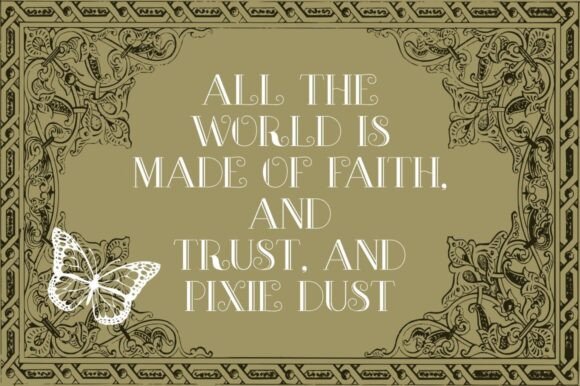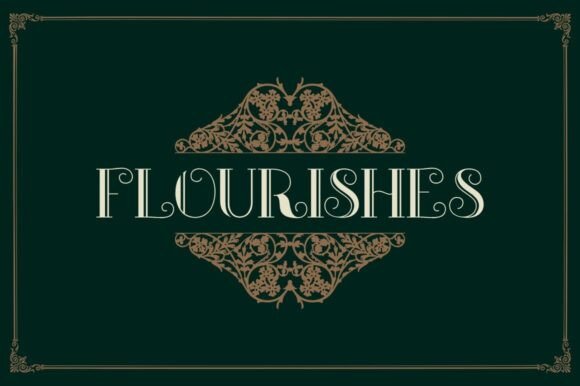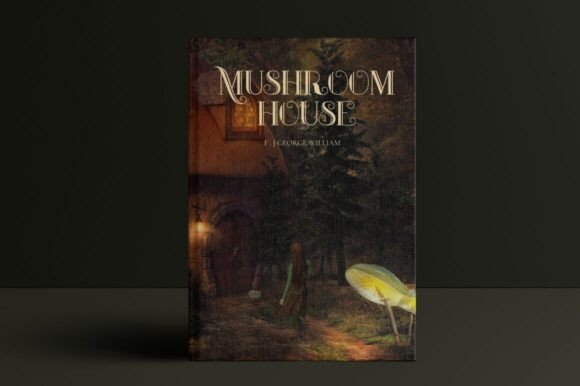
Introduction to Fairy Legend Font
Introducing Fairy Legend.
It is a wonderful retro font designed in the Art Deco style Inspired by typography from the 1920s ,that suit the mood of your project.
Key Features of Fairy Legend Font
Why Choose Fairy Legend Font?